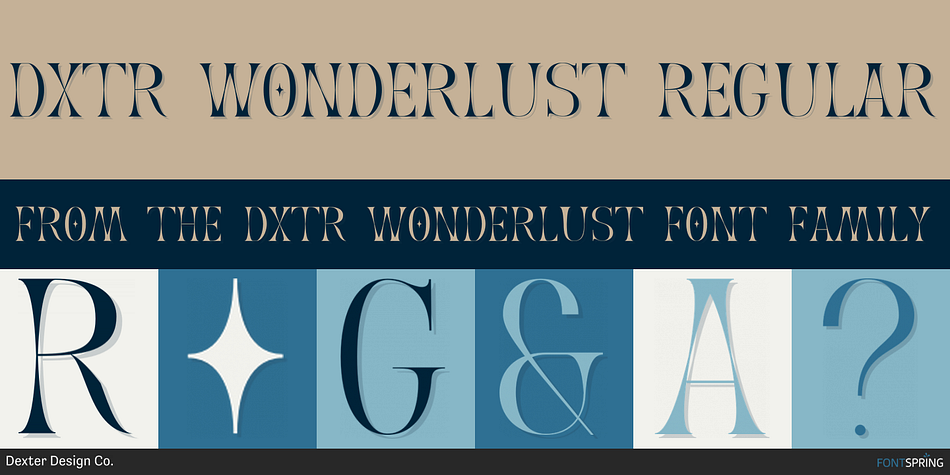
DXTR Wonderlust is a display serif font family published by Dexter Design Co.
DXTR Wonderlust is a display serif reminiscent of 1950 typgraphy. Use DXTR Wonderlust for logos, publication design, signage, and any large text.